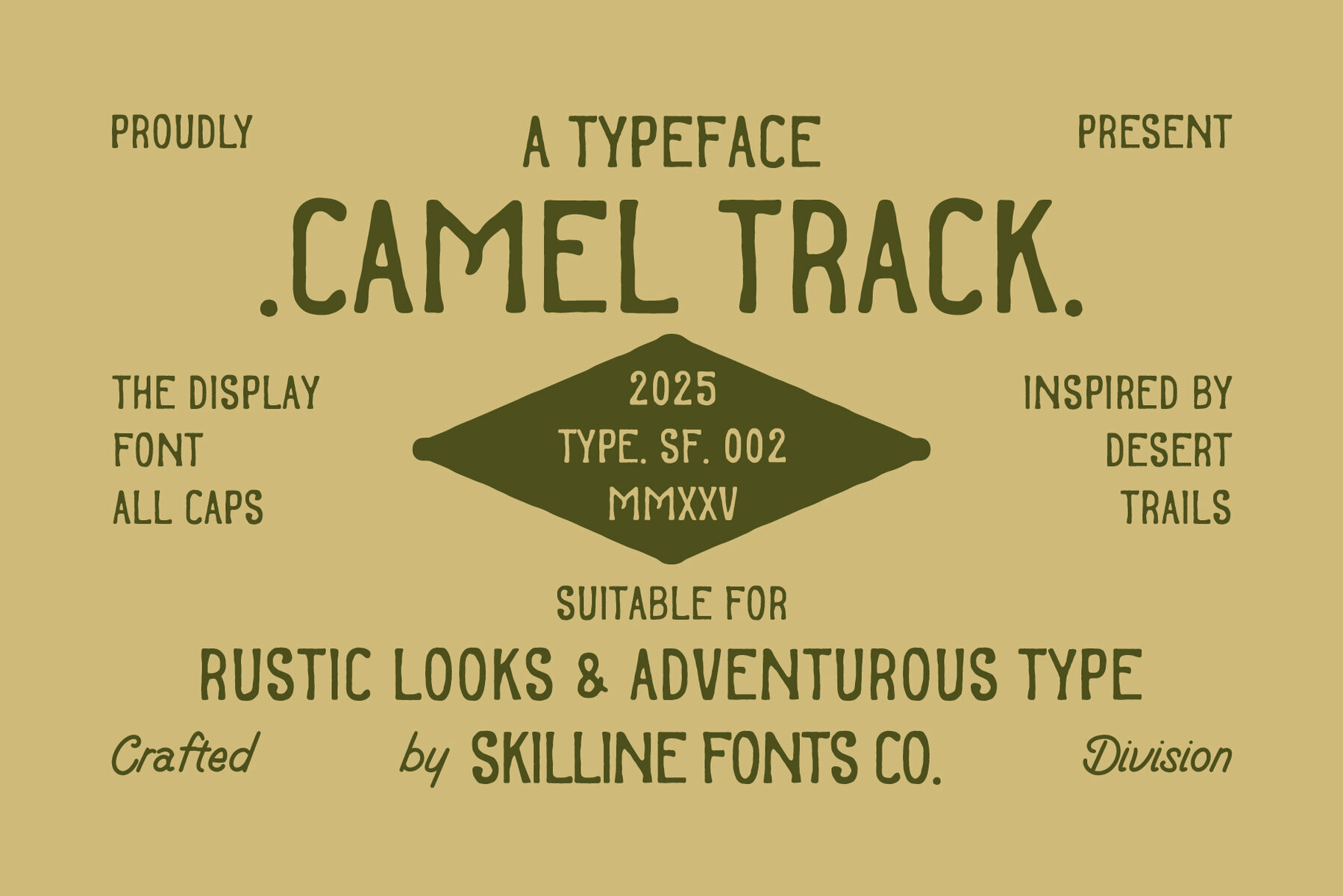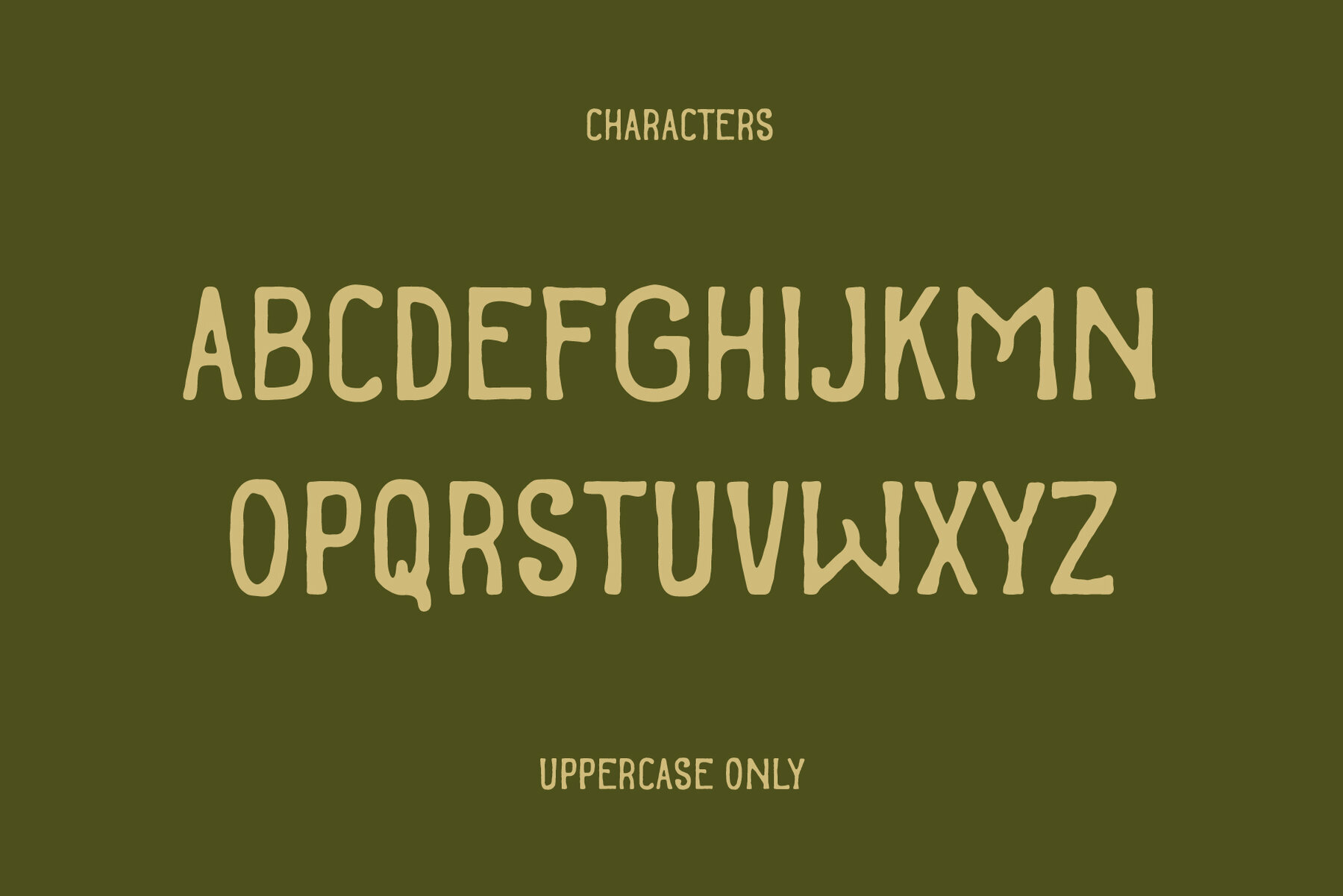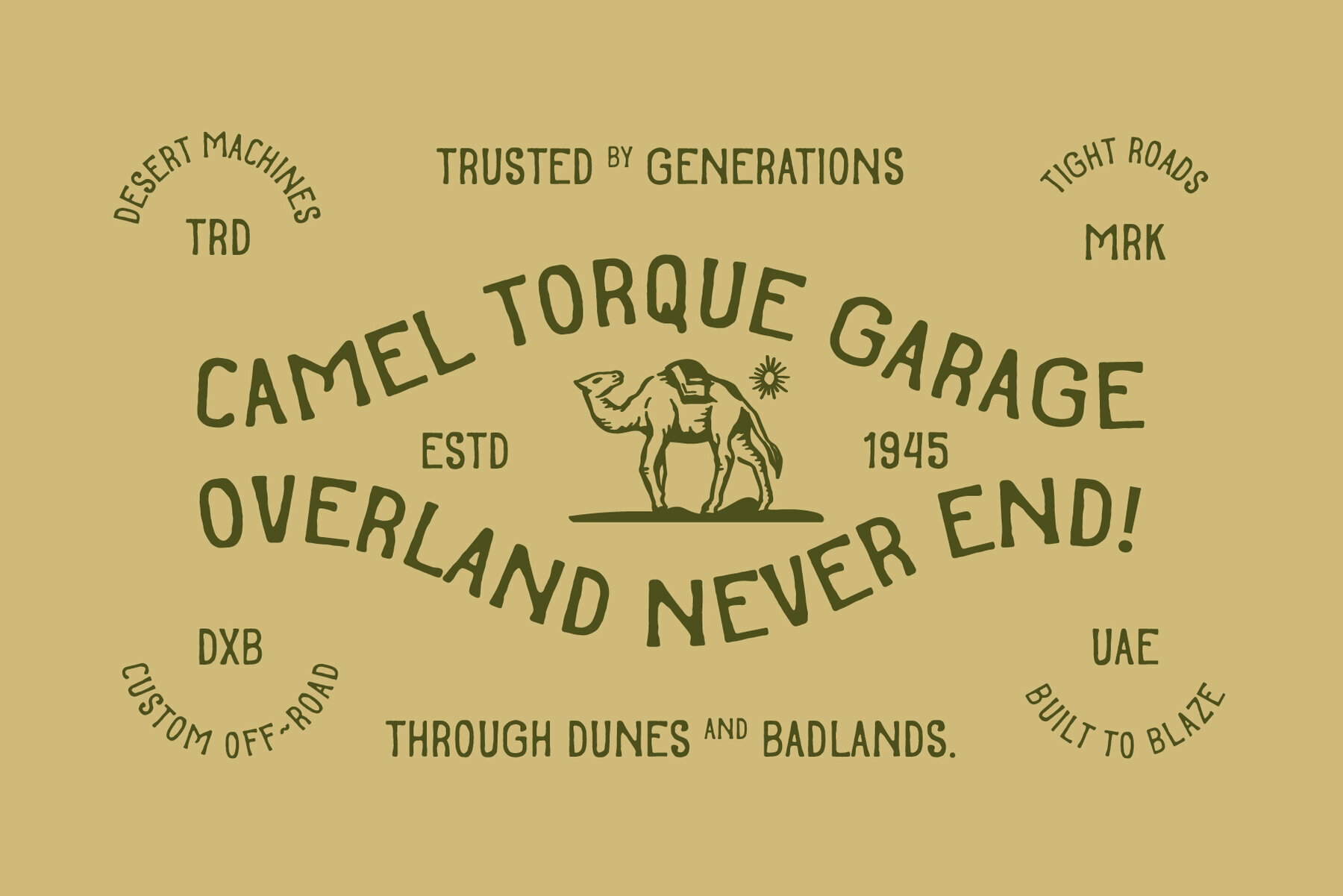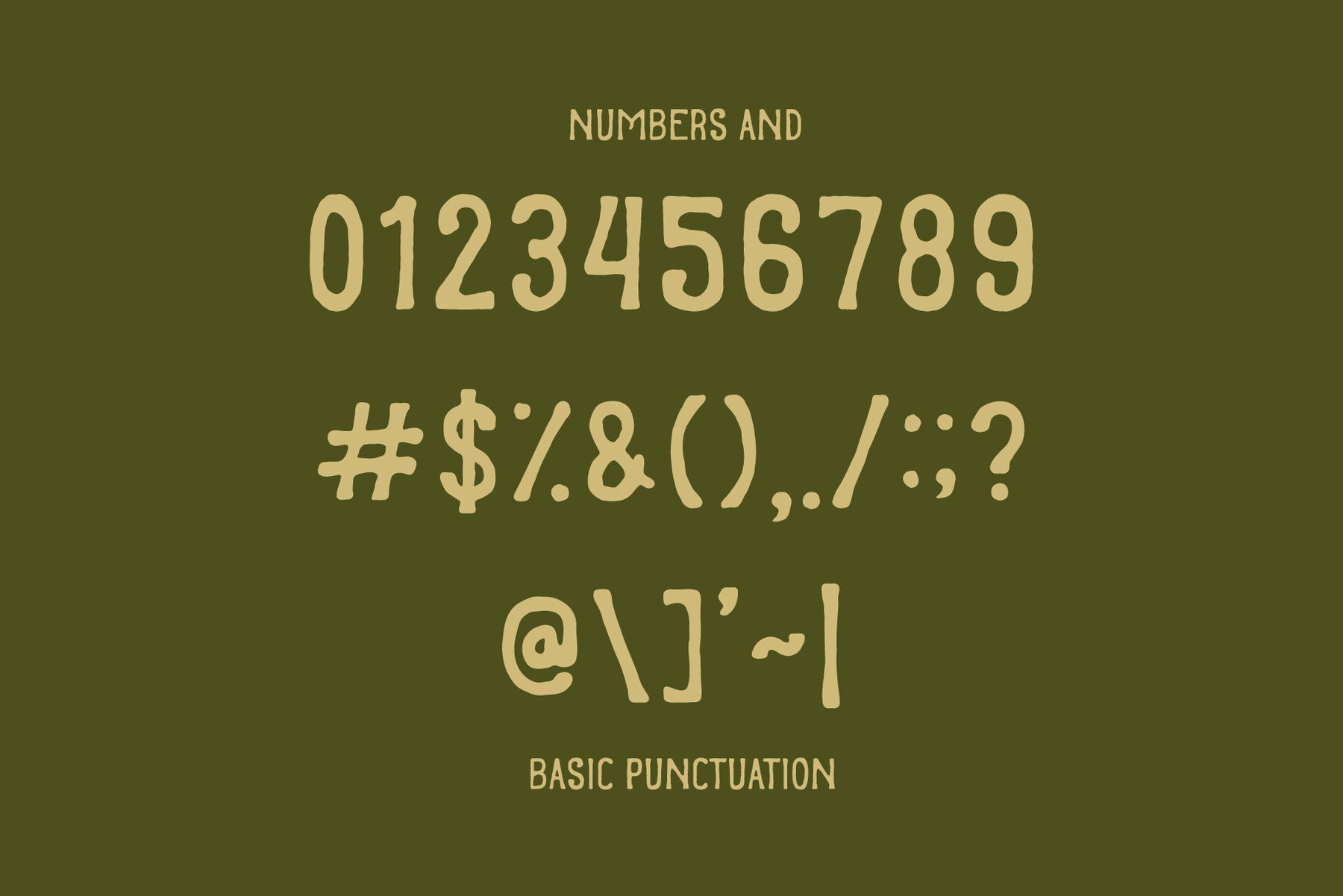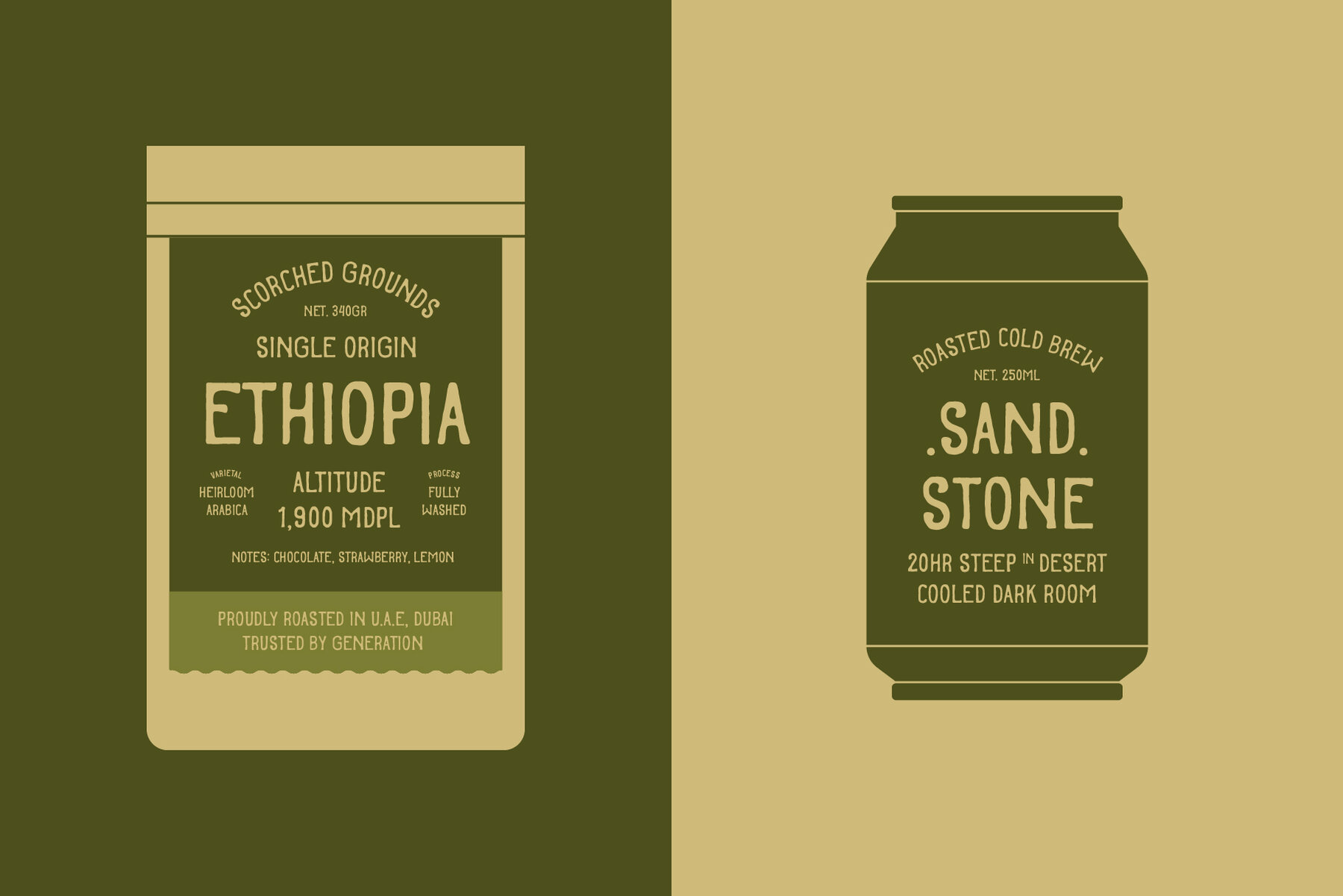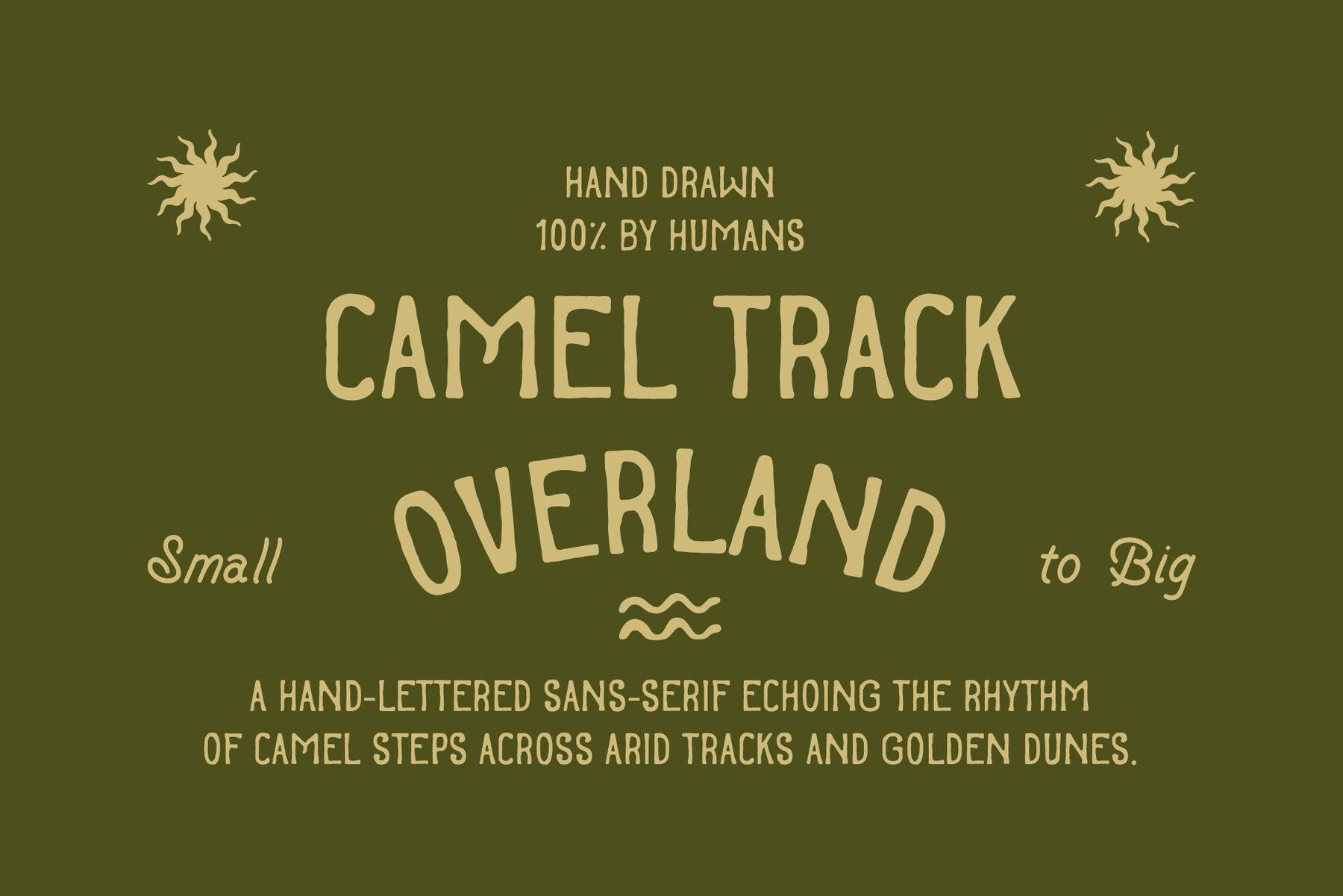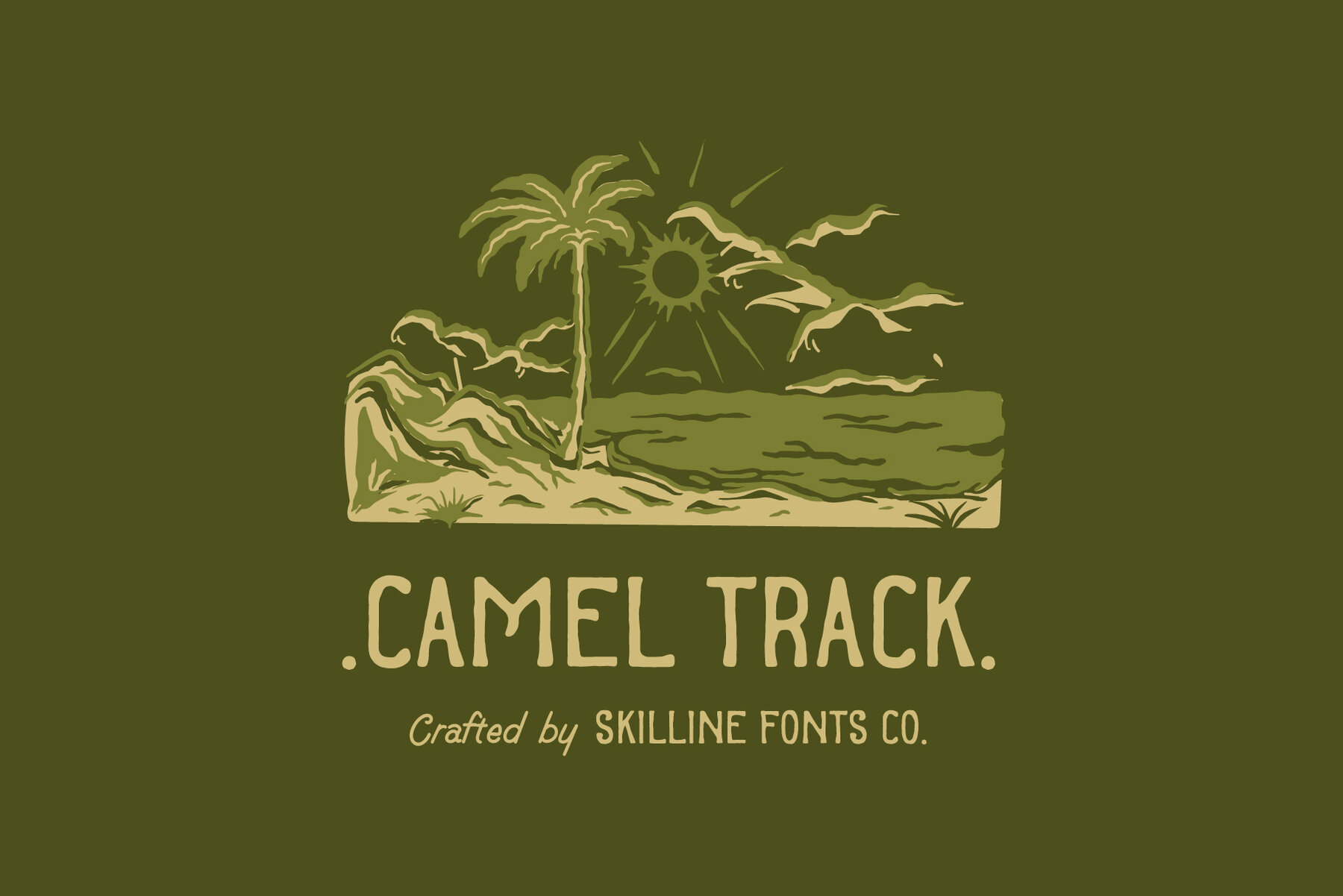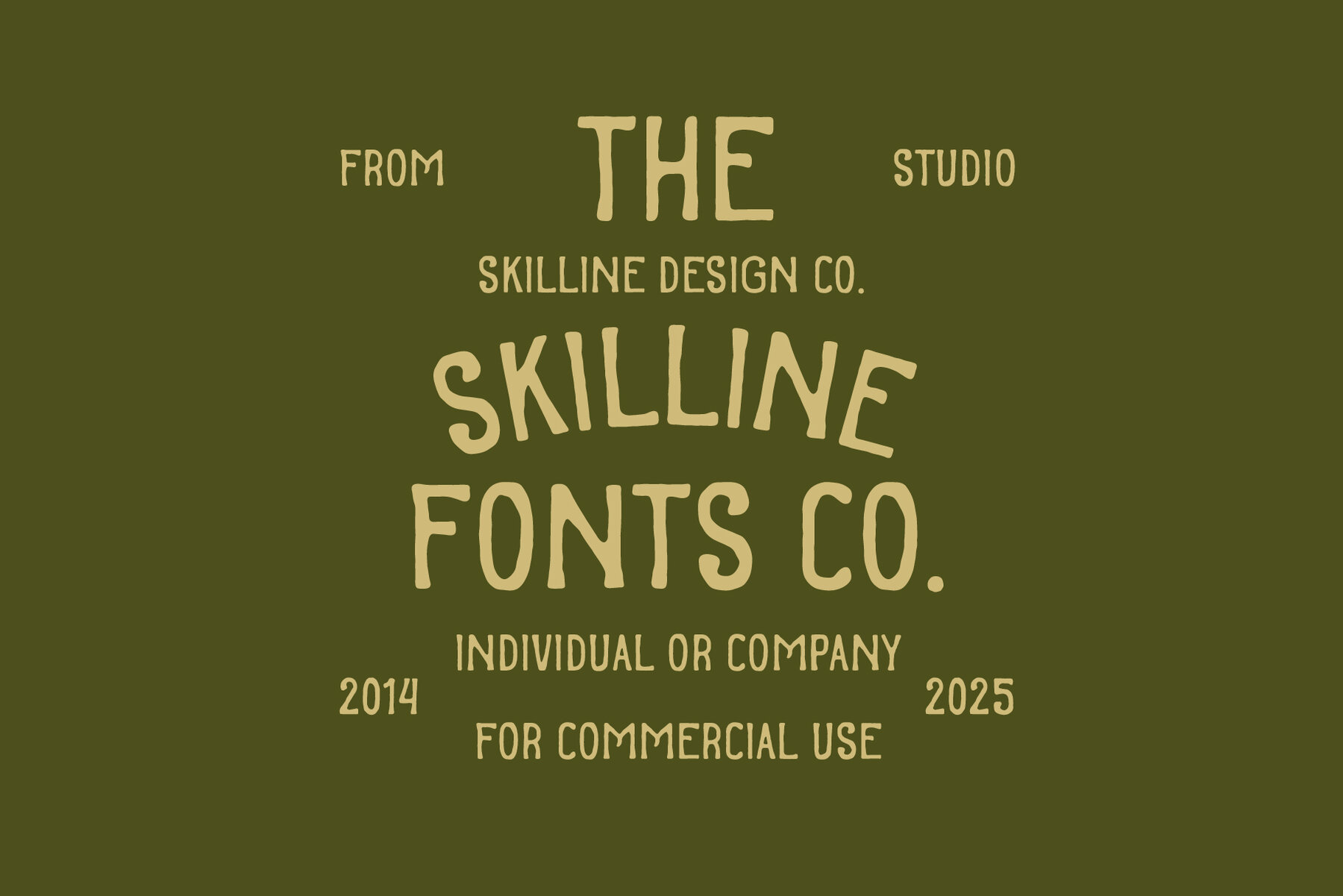
SFC Camel Track Font
SFC Camel Track
Camel Track: Rustic Vintage Sans Serif with Handcrafted Character Its handcrafted sans serif structure, with organic lines and warm details, delivers an authentic quality that works beautifully across badges, logos, posters, labels, and merchandise. Ideal Applications for Camel Track Branding and logo design with rustic, vintage appeal Editorial spreads and retro-inspired book layouts Packaging design for coffee labels, craft goods, and handmade products Apparel and merchandise with bold, authentic character Posters and lifestyle designs with artisanal charm
Camel Track is a bold handlettered sans serif font that blends rugged strokes with subtle imperfections for a timeless, nostalgic feel. Designed for modern creatives who want authenticity with versatility, this typeface balances raw personality with practical usability. Perfect for retro-inspired branding, editorial design, and artisanal packaging, Camel Track brings lasting charm to any project.